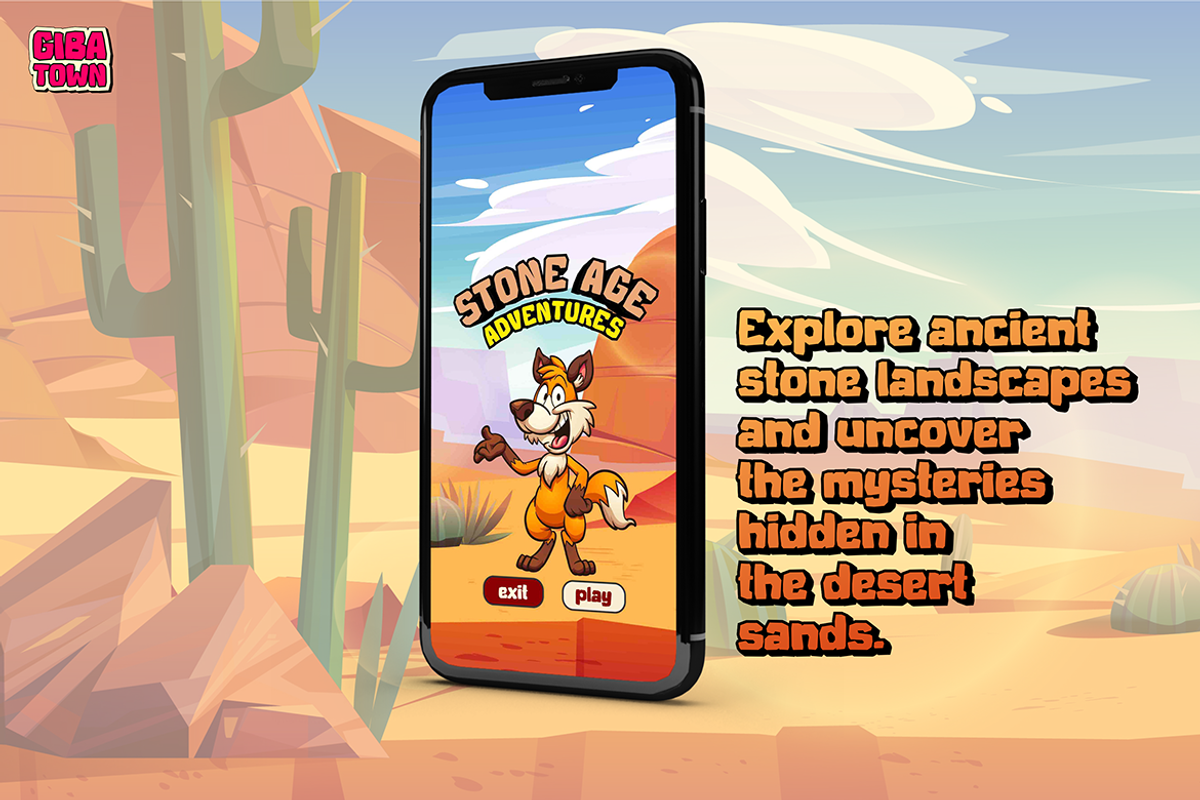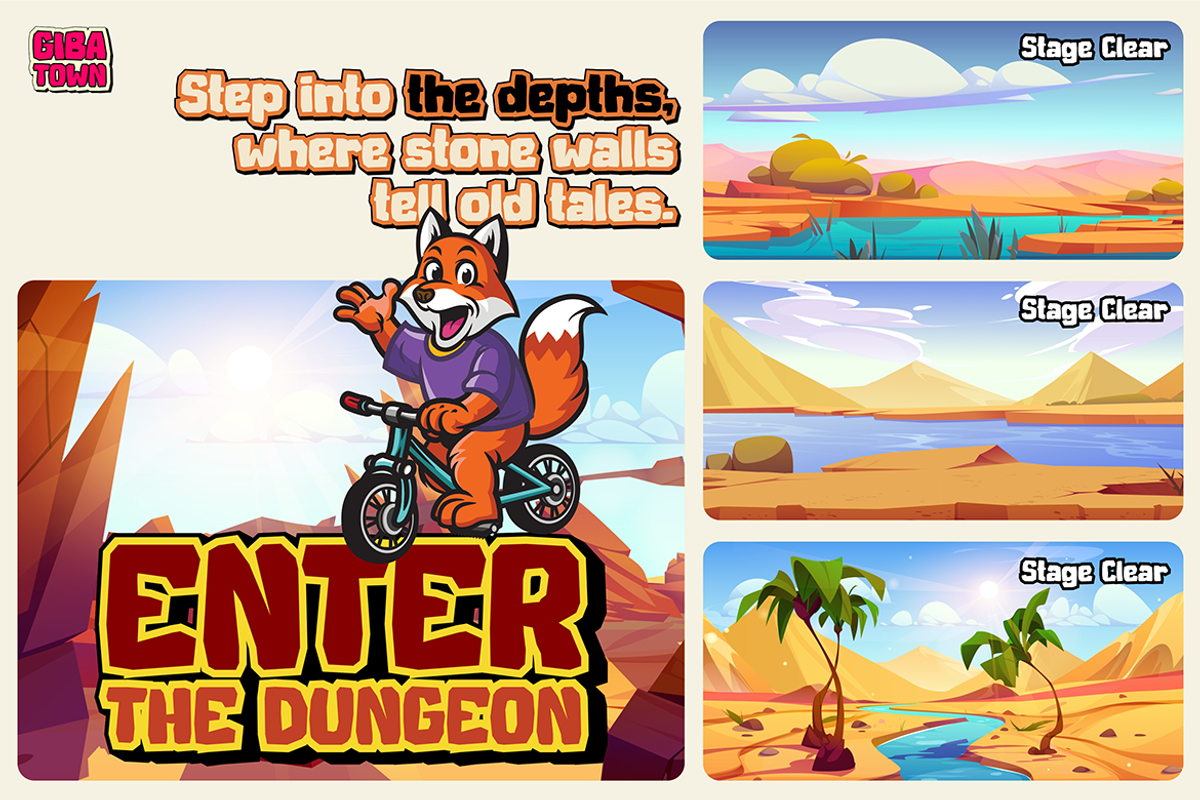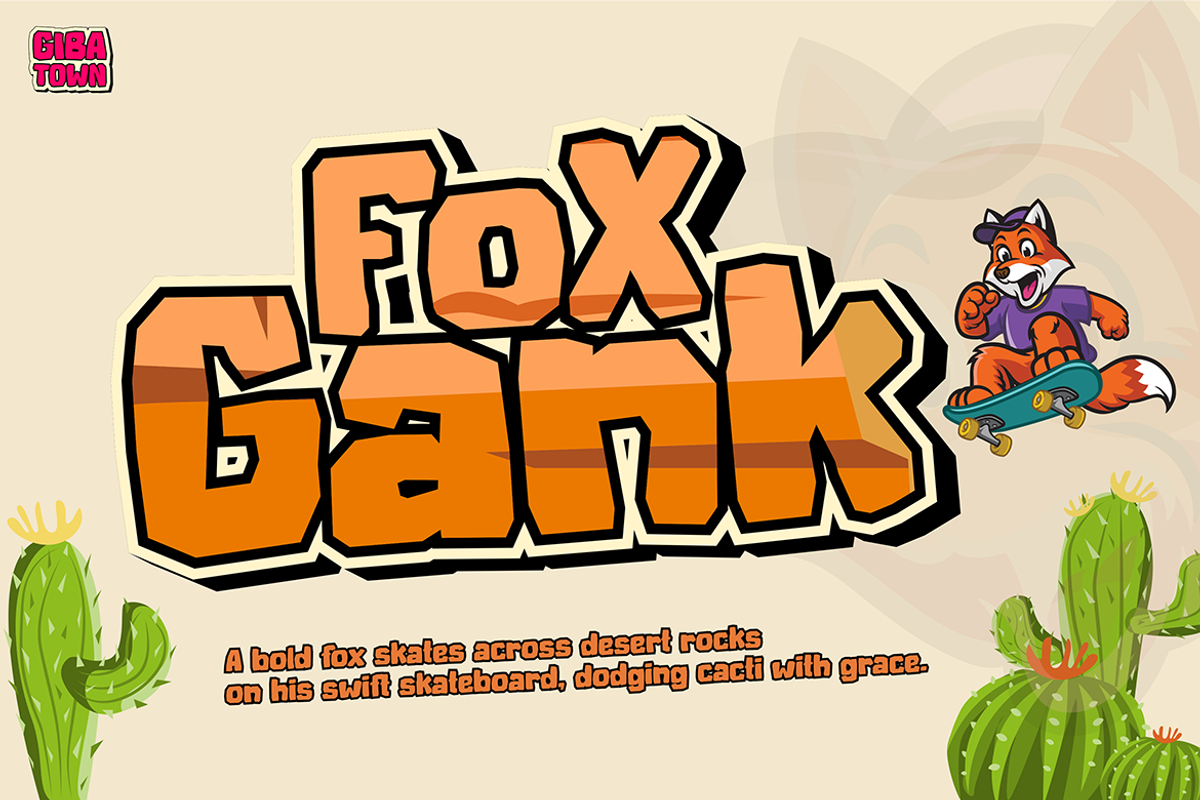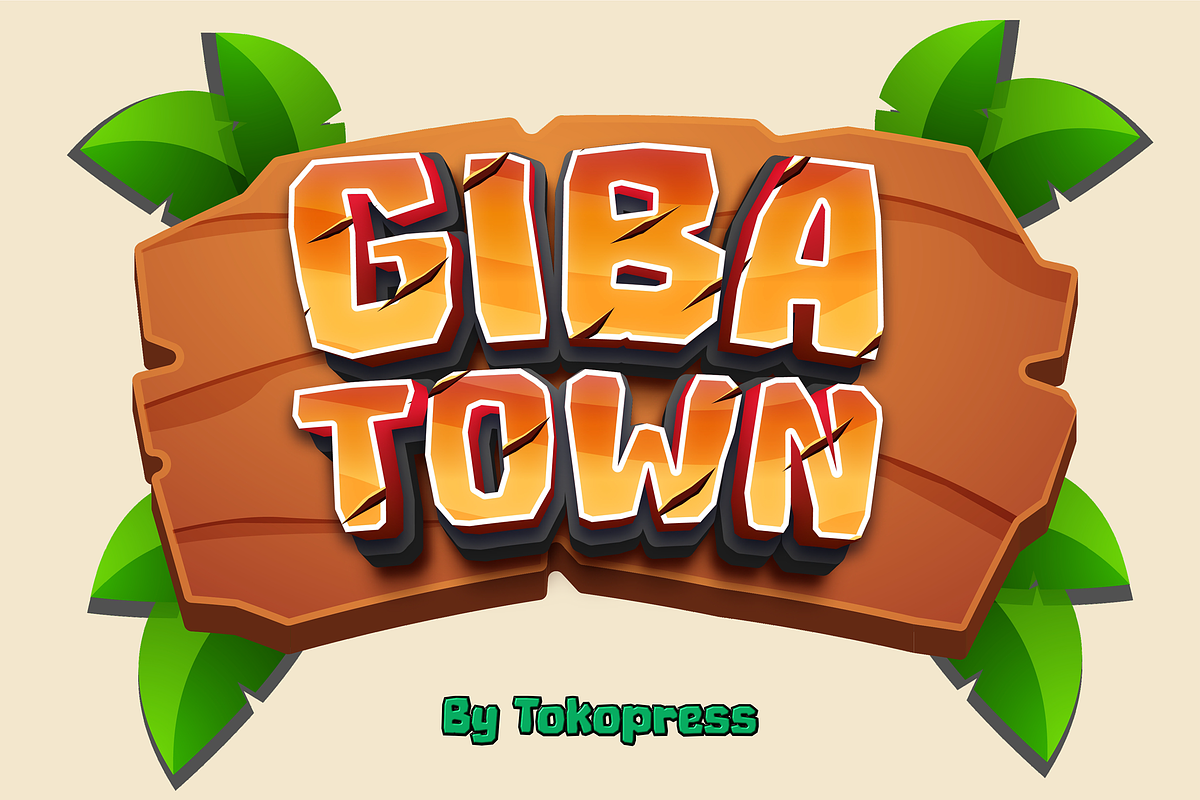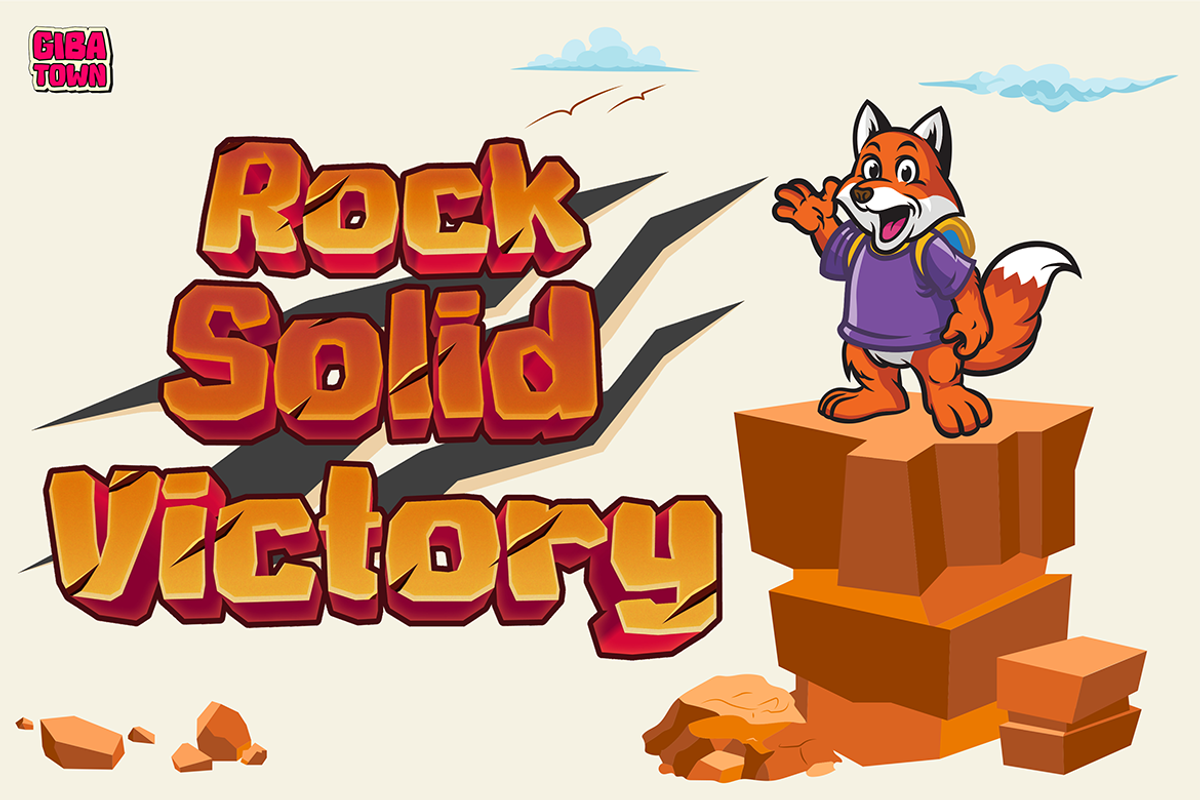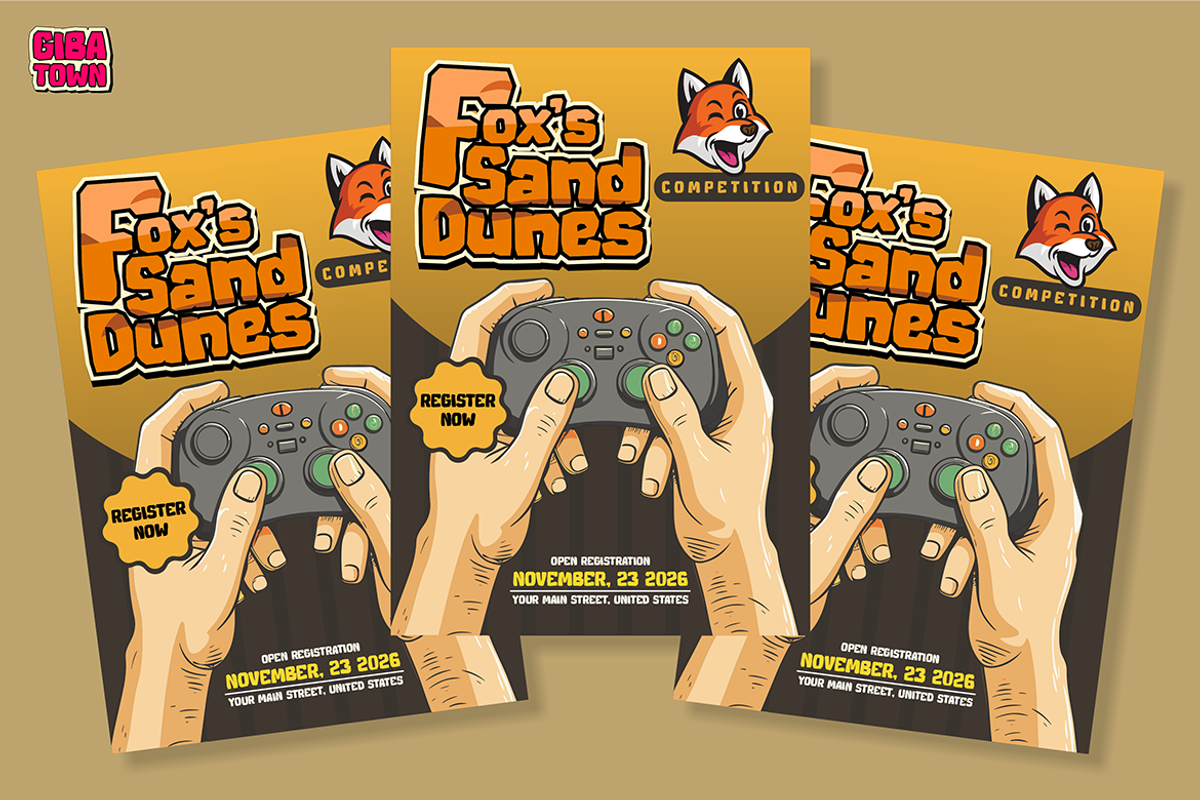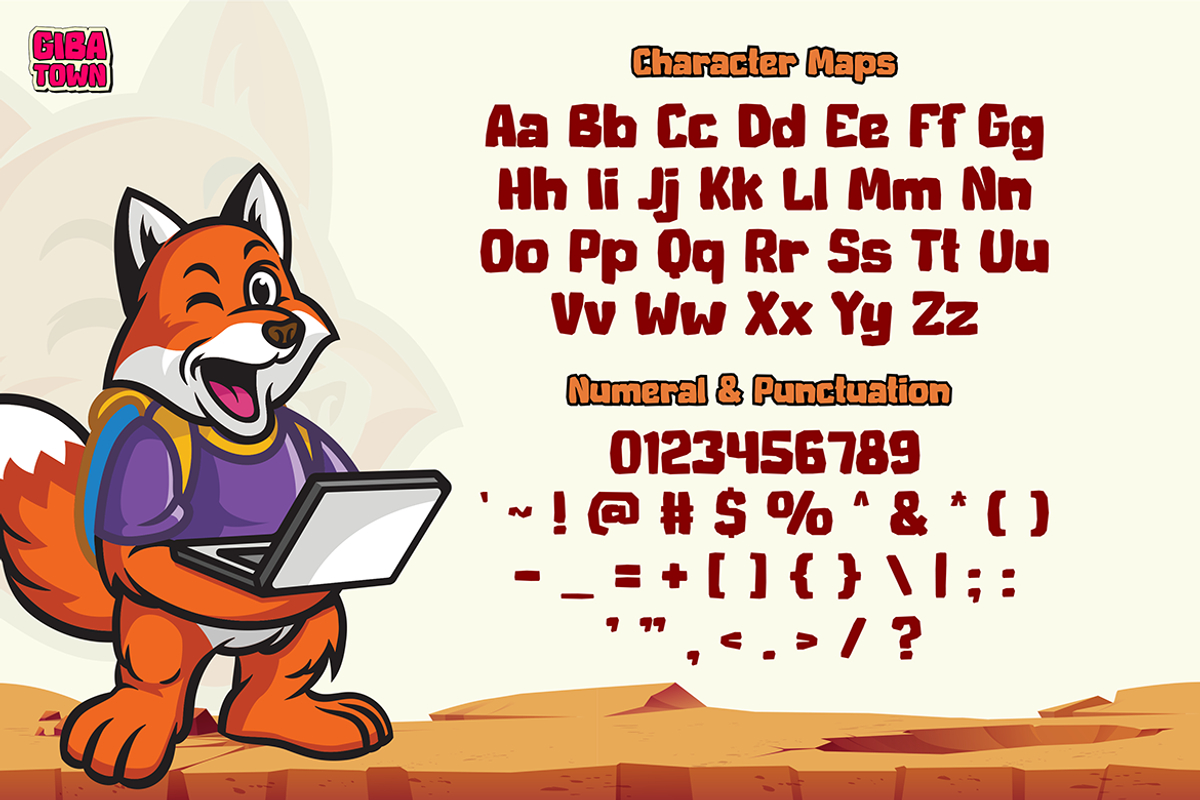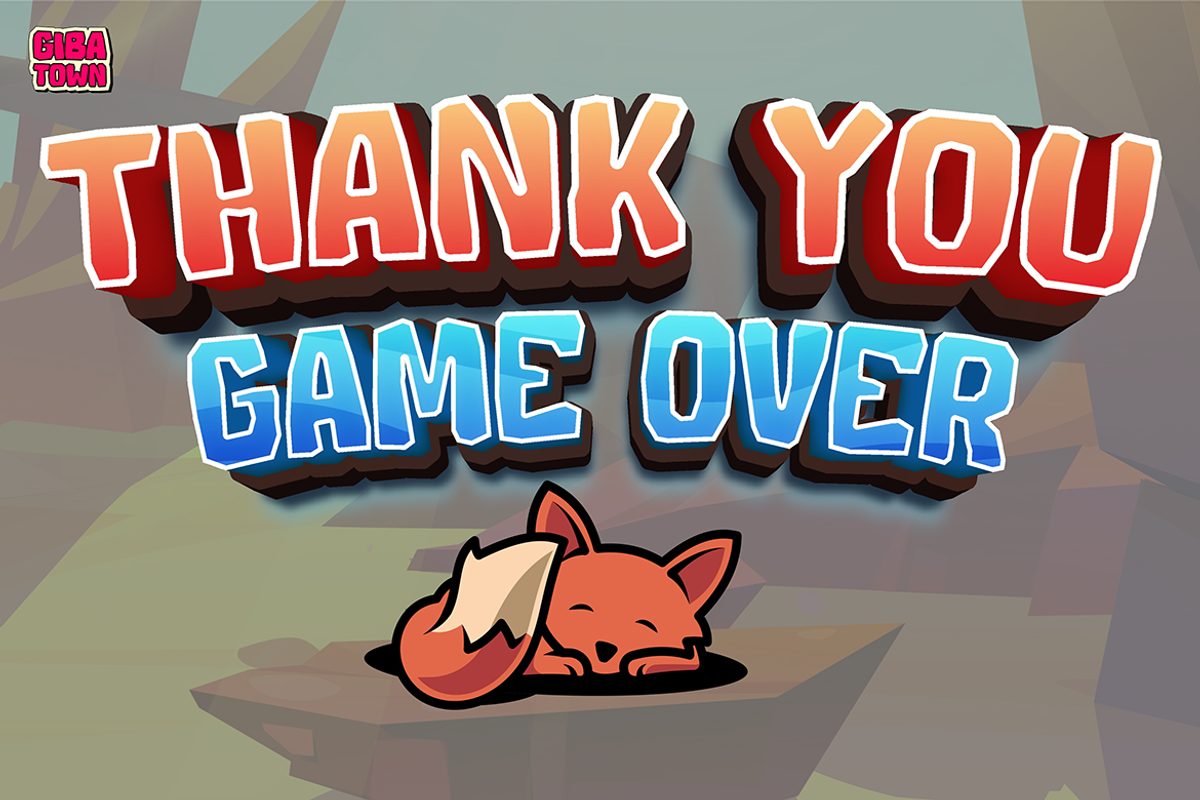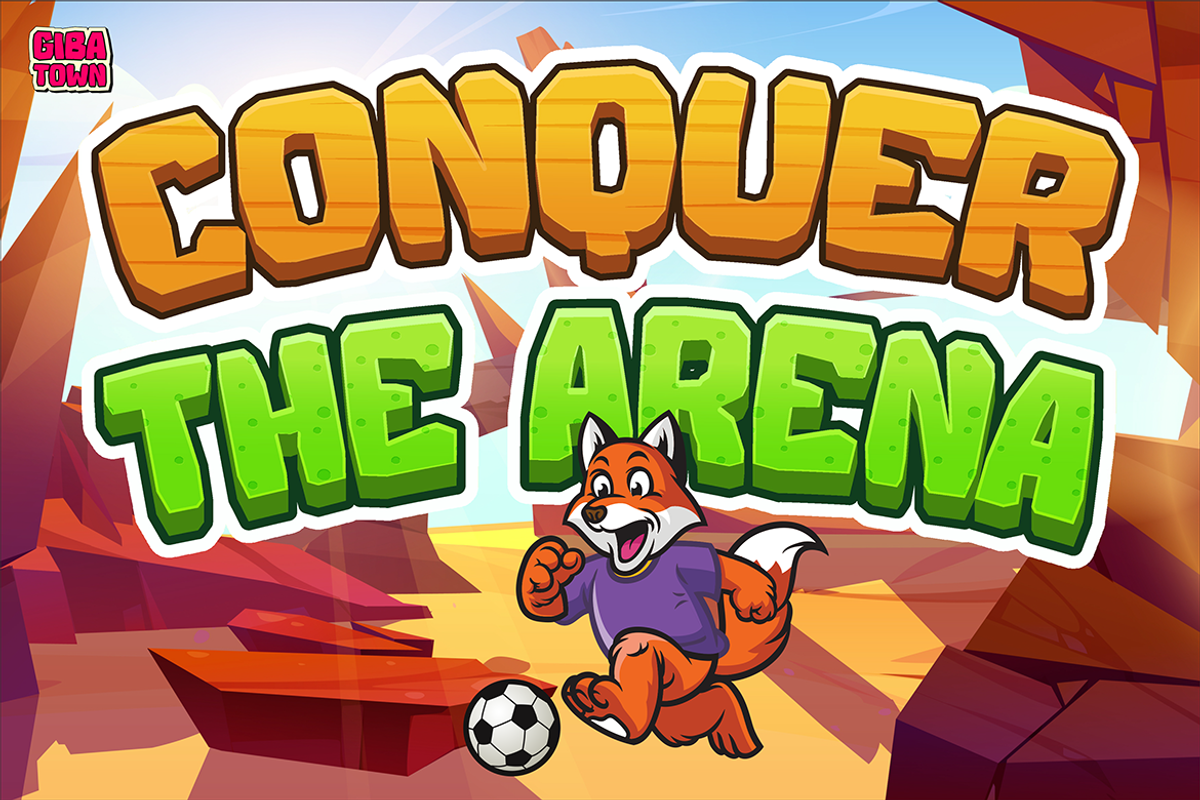
GIBATOWN
Gibatown – A Fun Fusion of Cartoon, Gaming, and Sans Serif
Gibatown is a bold and lively font that captures the spirit of cartoons and gaming in a clean, modern sans serif style.
Designed to stand out with its playful curves and energetic vibe, it’s perfect for anyone looking to bring a creative and youthful feel to their projects.
Whether you’re designing for posters, game titles, branding, or websites, Gibatown’s high readability and unique personality make it the ideal choice.
Elevate your designs with this versatile font that blends fun with professionalism!